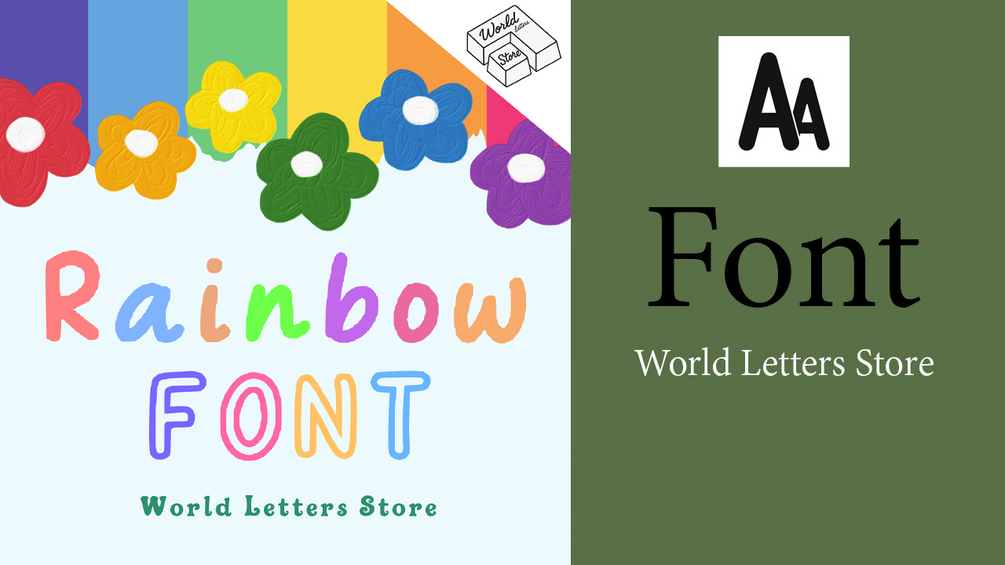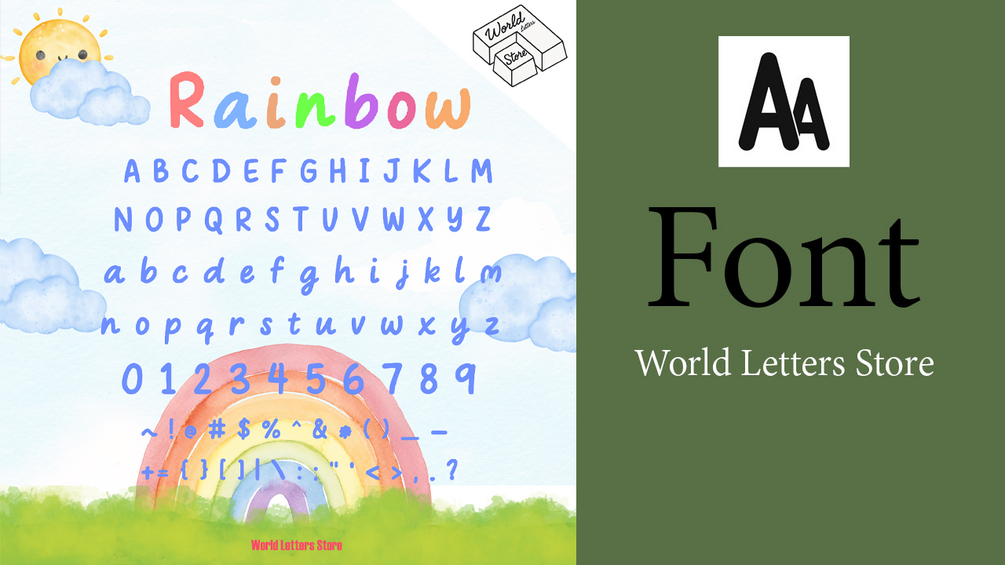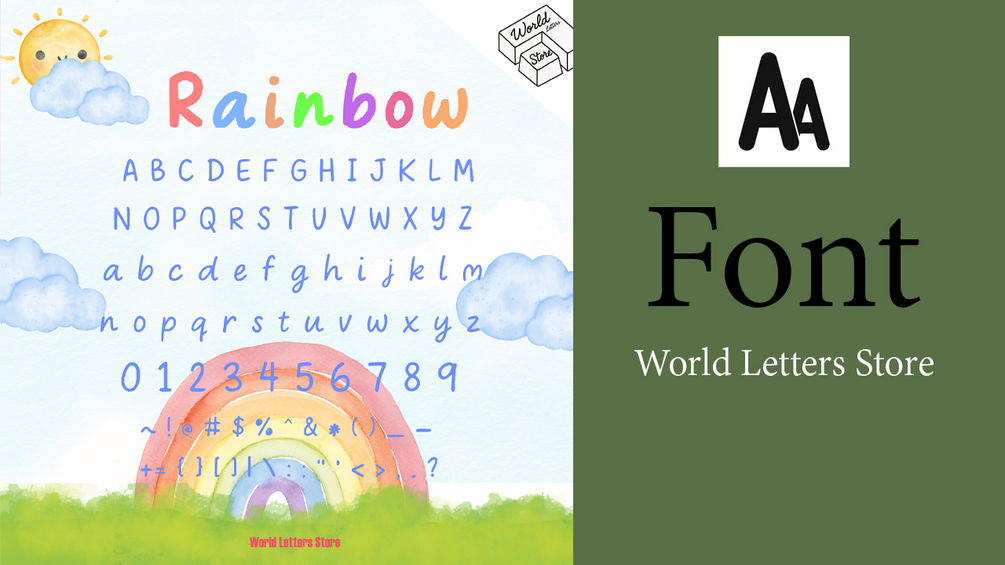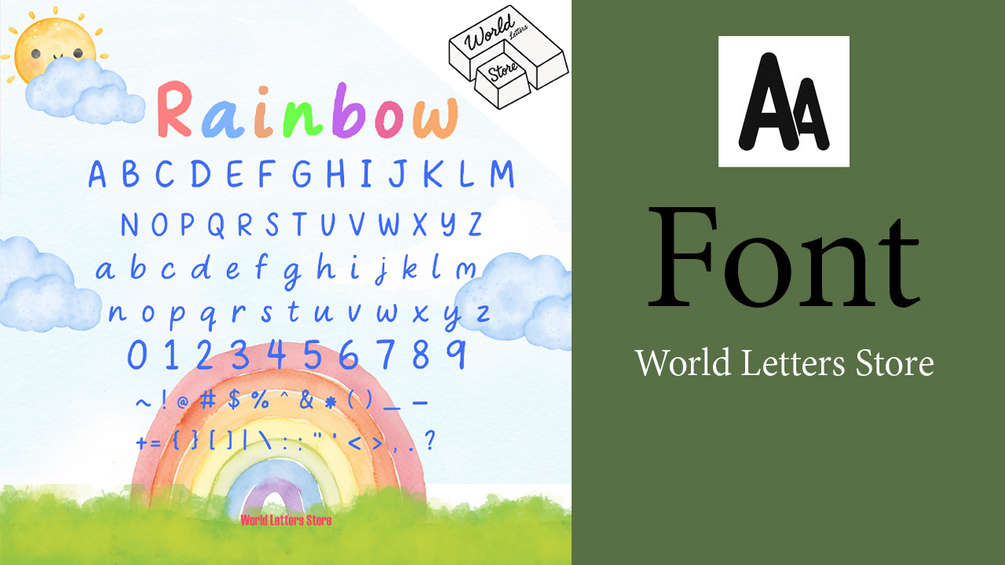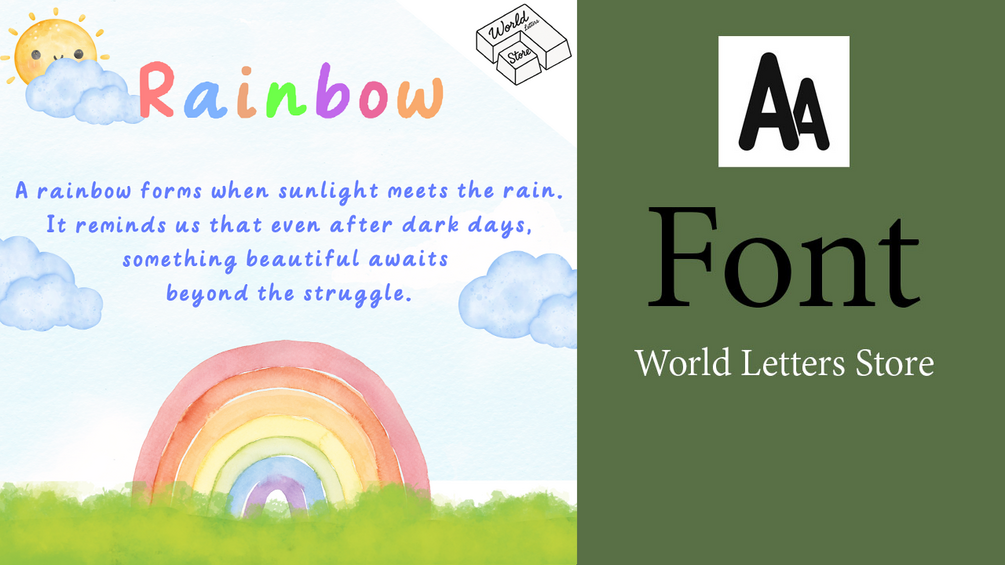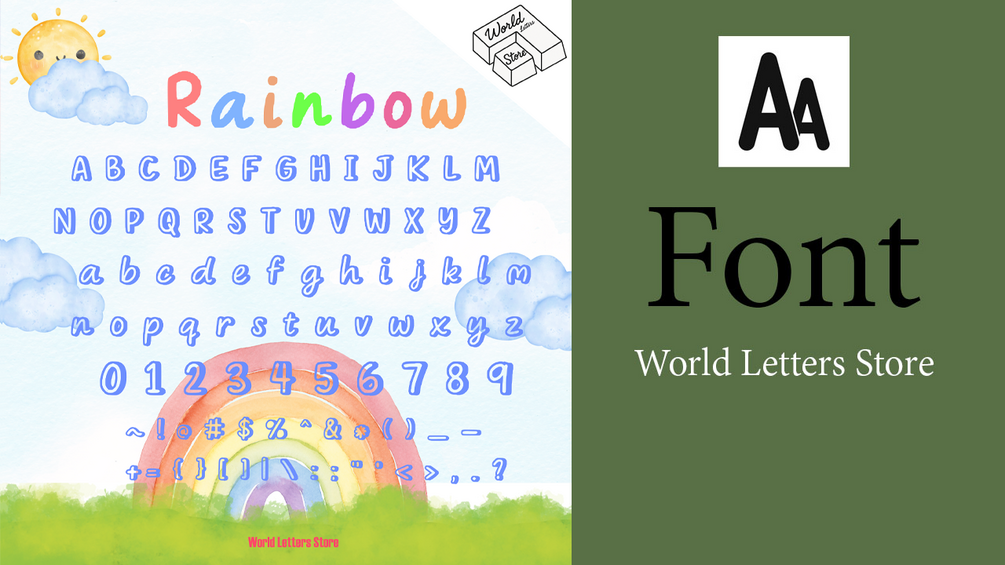
Rainbow Font, Handwritten Font , procreate font , cricut font , silhouette font , quirky whimsy font , Handwriting font ,
Perfect for planners, logos, stickers, quotes, and digital products.